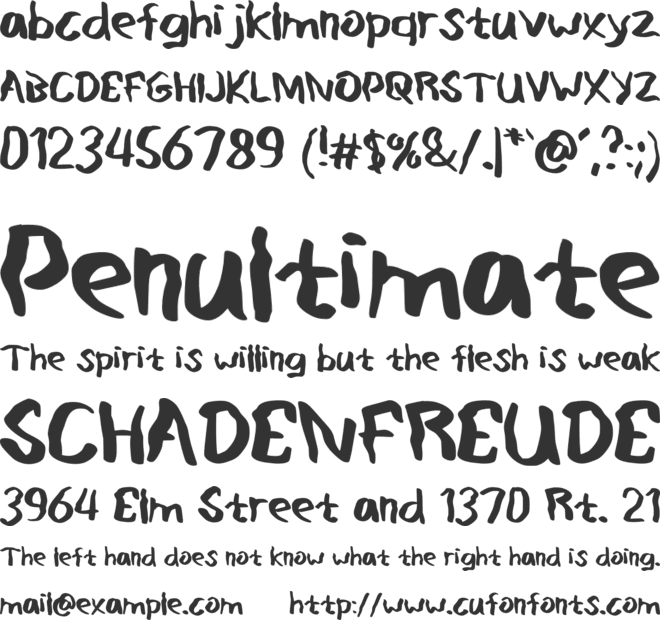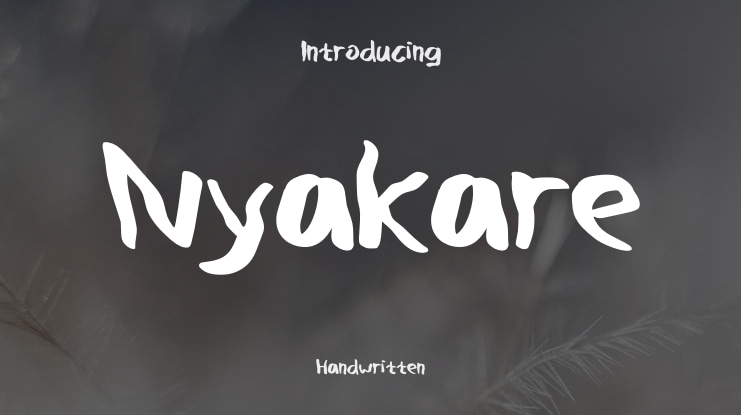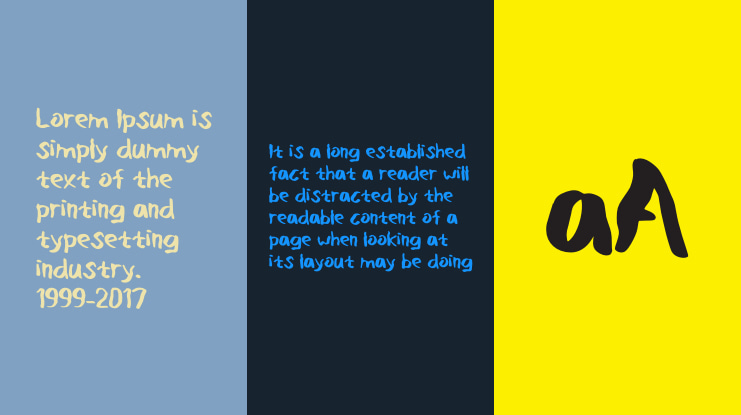
Introducing **Nyakare - Urban Rounded Font**
This Font can be used for any variety of purposes, such as:
Event, Social Media Feed,Flyer, Packaging Products, Logo Type, Branding, T-Shirt Design, Website/Blog, Headline Magazine, Brochures and also can be used for other purpose.
This Font Template contains Wild,Urban, Art, Creative, Professional and Unique Concept.